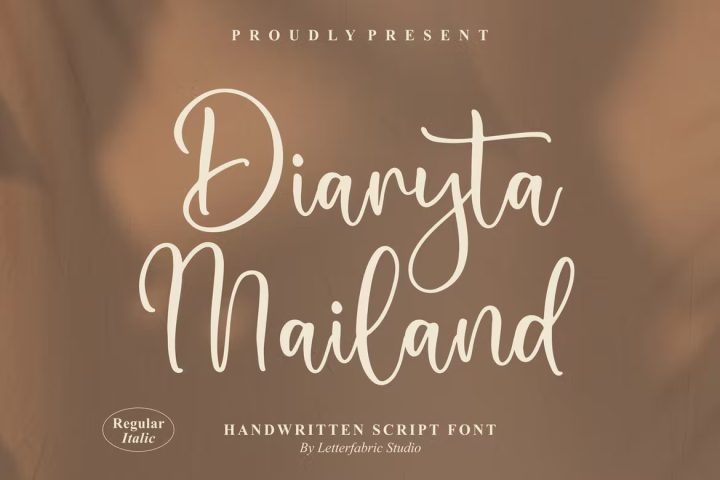
Diaryta Mailand Handwritten Script Font
Hi ladies & gentlemen, this is one of our fonts suitable to complement your digital and printed creative products. This font is perfect for posters, social media posts, branding, personal projects, etc.